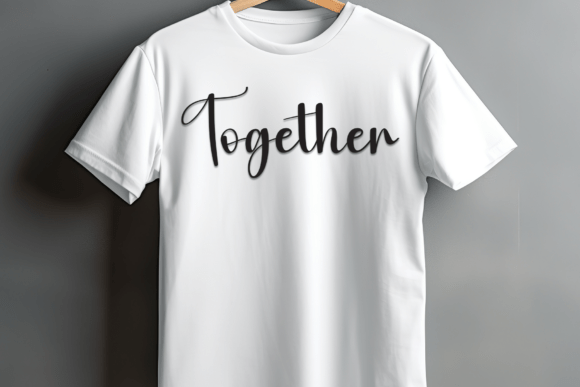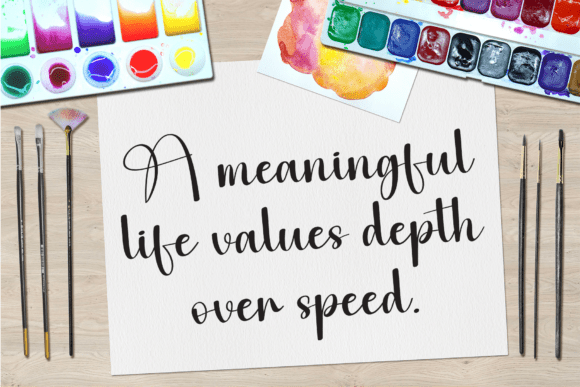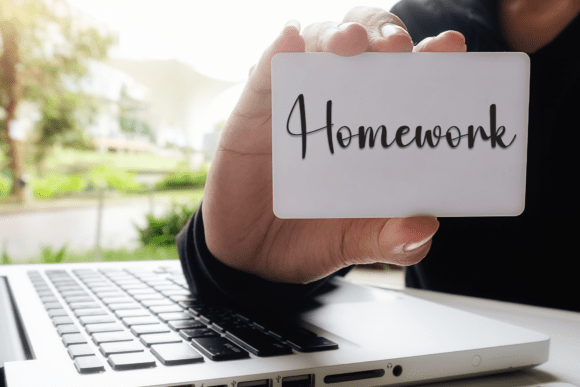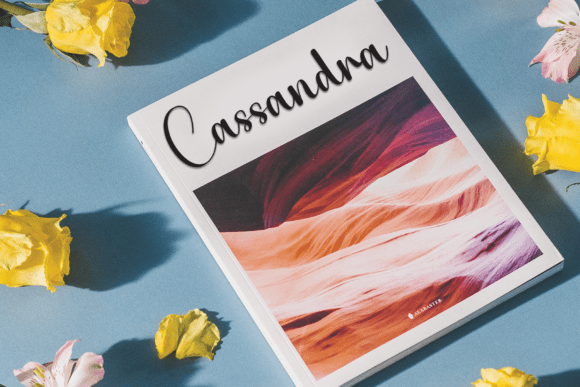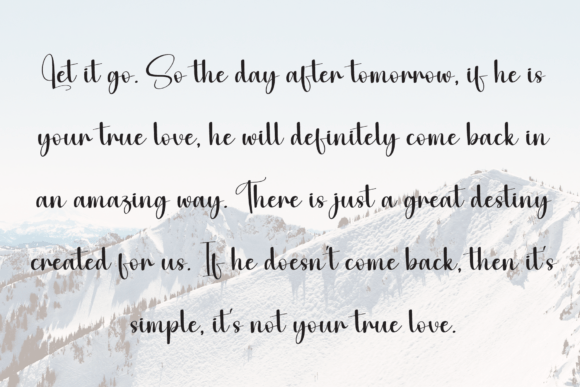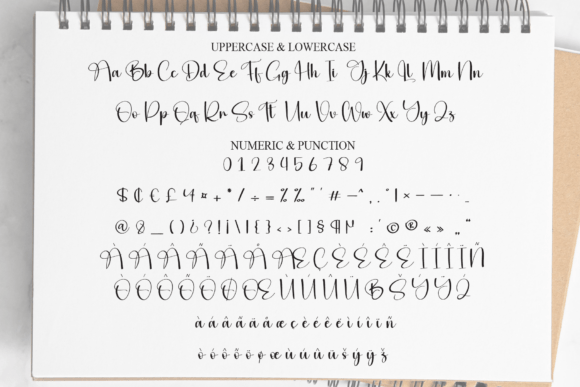
Elevate Your Designs with Chunky Calligraphy Font: A Creative Game-Changer
Are you a designer, crafter, or DIY enthusiast looking to add a touch of elegance and personality to your projects? Look no further than the Chunky Calligraphy Font, a special creative product designed to take your designs to the next level. With its unique blend of style and versatility, this font is perfect for a wide range of applications, from wall displays and wedding invitations to social media post logos, advertisements, product packaging, and more.
What Sets Chunky Calligraphy Font Apart
The Chunky Calligraphy Font is not just any ordinary font. Its distinctive, hand-crafted style is designed to add a touch of sophistication and whimsy to any project. With its chunky, bold lines and beautiful calligraphic flair, this font is sure to make your designs stand out from the crowd. Whether you’re looking to create stunning visual displays, craft beautiful wedding invitations, or simply add a personal touch to your social media posts, this font is the perfect choice.
Endless Possibilities with Chunky Calligraphy Font
One of the best things about the Chunky Calligraphy Font is its incredible versatility. This font can be used for a wide range of projects, including:
- Wall displays and signage
- Social media post logos and graphics
- Advertisements and marketing materials
- Product packaging and labeling
- Product designs and branding
- Photography and watermarking
- Invitations and event planning
- Stationery and paper crafts
Why Choose Chunky Calligraphy Font?
So why choose the Chunky Calligraphy Font over other fonts on the market? Here are just a few reasons:
- Unique and distinctive style: The Chunky Calligraphy Font is a one-of-a-kind font that will add a touch of personality to any project.
- High-quality and versatile: This font is designed to work seamlessly across a wide range of applications and design software.
Take Your Designs to the Next Level
Whether you’re a seasoned designer or a DIY enthusiast, the Chunky Calligraphy Font is the perfect choice for anyone looking to elevate their designs and add a touch of creativity and personality to their projects. With its unique style, versatility, and ease of use, this font is sure to become a go-to in your design toolkit.